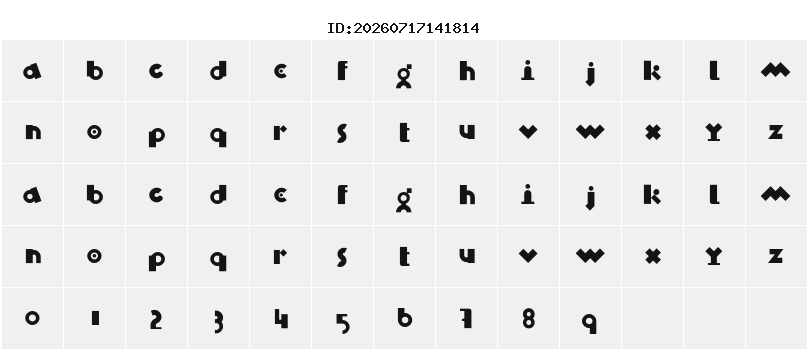
Blix Black Preview
• Font Name: Blix Black
• Full Font Name: Blix Black
• Designer: Francois Bruel
About Blix Black.otf
Blix Black.otf is a modern, elegant sans-serif font designed for ultimate readability and visual harmony. Perfect for branding, headlines, web design, and print materials.